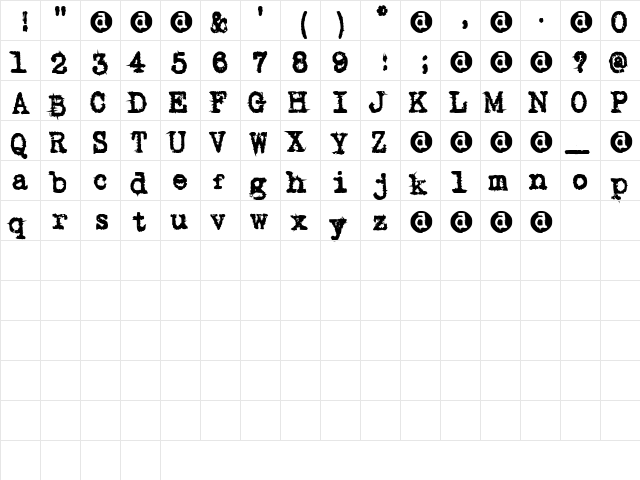
Noveltease Regular
Design Context for Noveltease Typeface
Noveltease takes a measured approach to typography — its balanced proportions and neutral character make it a reliable workhorse for both digital and print work.